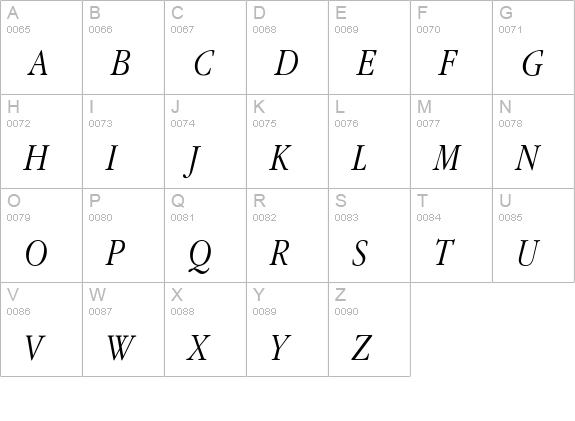
Apple Garamond Light Italic is a refined, elegant, italic variant in the Apple typeface family \xE2\x80\x94 well suited to elegant body text, refined sub-headings, and luxury branding.
Apple Garamond Light Italic is a sophisticated and elegant typeface that exudes timeless charm and grace. Its delicate strokes and graceful curves give it a sense of refinement and subtlety, making it perfect for conveying a sense of sophistication and style. The light weight of the font adds a touch of delicacy and airiness to any design, making it ideal for use in elegant invitations, branding materials, and editorial layouts. What's even better is that Apple Garamond Light Italic is available for free download at FontsMarket.com. This means you can easily access this beautiful font and use it in your projects without any cost. Whether you're a designer looking to add a touch of elegance to your work or a business owner wanting to elevate your branding, Apple Garamond Light Italic is the perfect choice. Download it today and add a touch of timeless beauty to your designs.